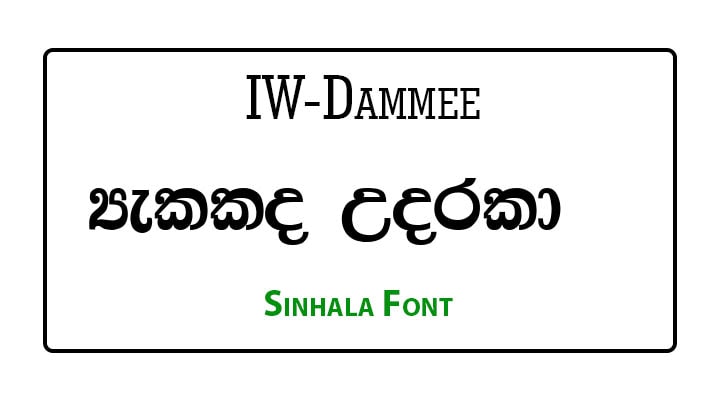
IW Dammee Sinhala Font Free Download. IW Dammee Font Keyboard Layout for Free. This is one of the most popular Sinhala Language fonts. This beautiful Font is widely used by Sri Lankan Sinhala Peoples. This is the most used Sinhala font in the print media, Photoshop designers, copywriters, and marketing agencies of all kinds. This is a great font which is used in graphic design, magazines, simple text, book printing and etc. The Following Sinhala Font is available for free download and ready to use for individual and commercial needs.
Preview of the font IW Dammee
Why IW Dammee?
Simple Design
Most Popular Font
Suitable for Publication and Graphic Designing